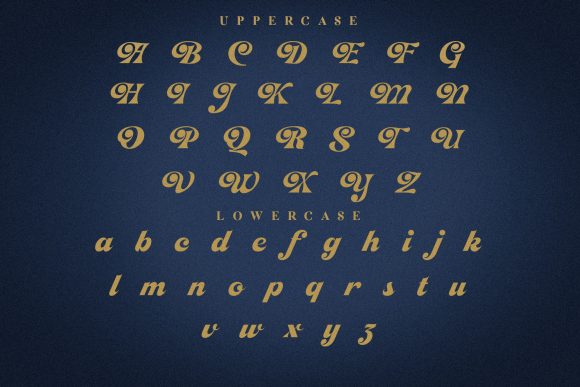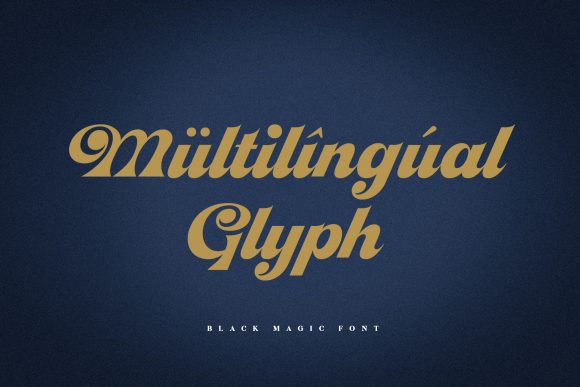
Black Magic Font
db-ku.com - Script & Handwritten -- Black Magic is a bold and assertive handwritten font. No matter the topic, this font will be an incredibly asset to your fonts’ library, as it has the potential to elevate any creation.